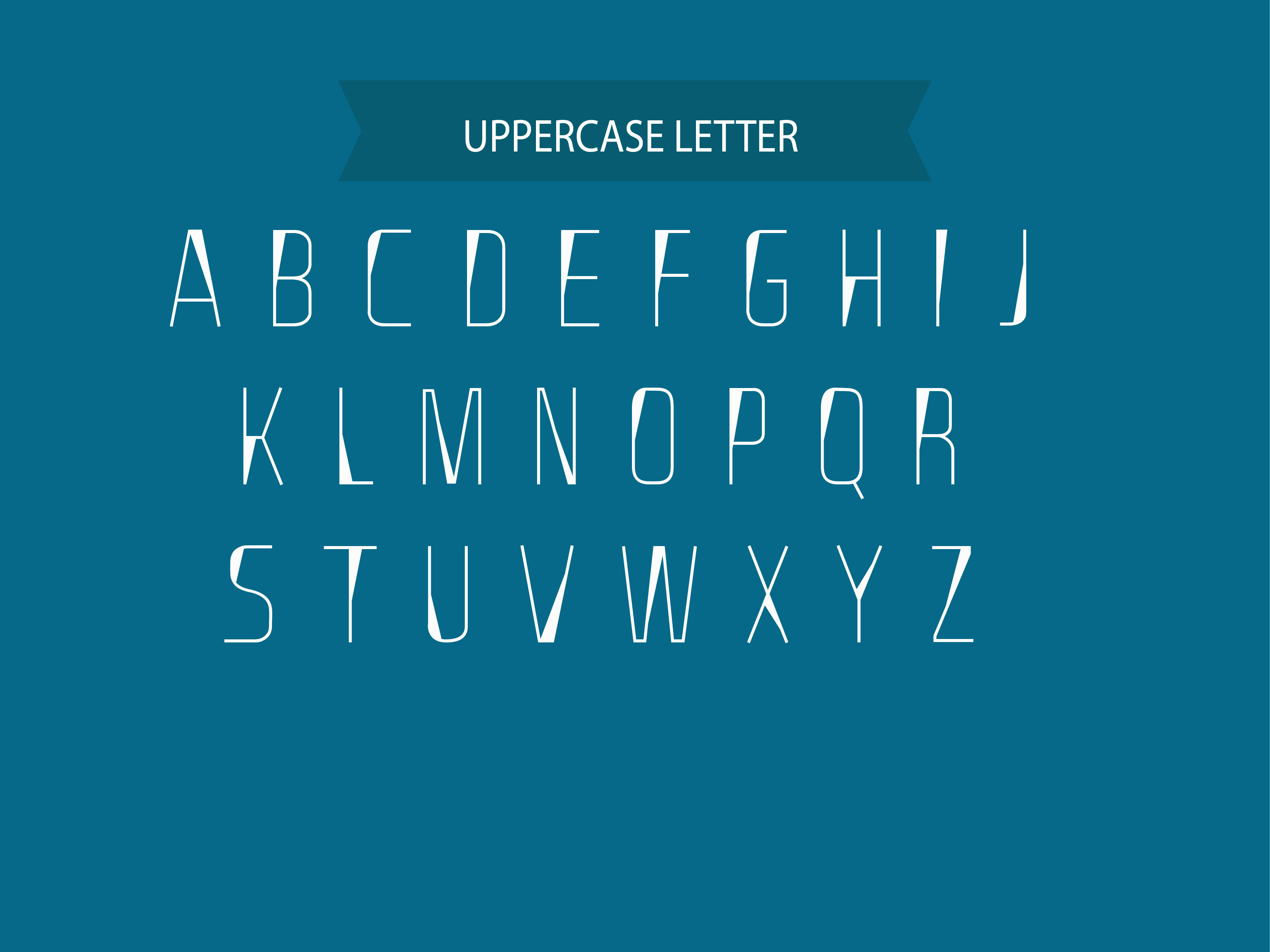
Pall Font
Pall Font Family Information:
- Pall Font is a stylish hand made Font, Available in Regular, Bold, Slice, Collage, Bold Italic, Slice Italic 7 in one version with all special characters.
7 Font Style
Pall Regular
Pall Italic
Pall Collage
Pall Slice
Pall Slice Italic
Pall Bold
Pall Bold Italic
Make your design with Pall Font
Suitable for…
Magazine design
Cover design
Flyer design
Display font
Web site Slider Font
Hade line font
Regular font
Product name
Etc.
It’s useful for any Design project. card, e-card, Good for Logos & Headlines, Poster,Tag design, Newspaper & Magazine Ad Design and many more. True type and Open type font files